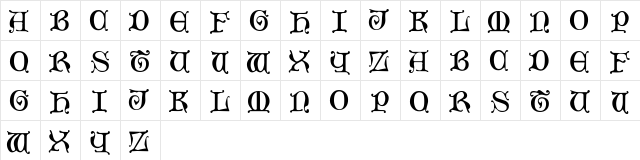
MediaevalCaps Regular Font Preview
MediaevalCaps Regular
Design Context for MediaevalCaps Typeface
MediaevalCaps is a composed and adaptable typeface that performs quietly and consistently across a wide range of design contexts.
Pro Tip: Use MediaevalCaps in both headline and body roles to test its range before committing to a single application.